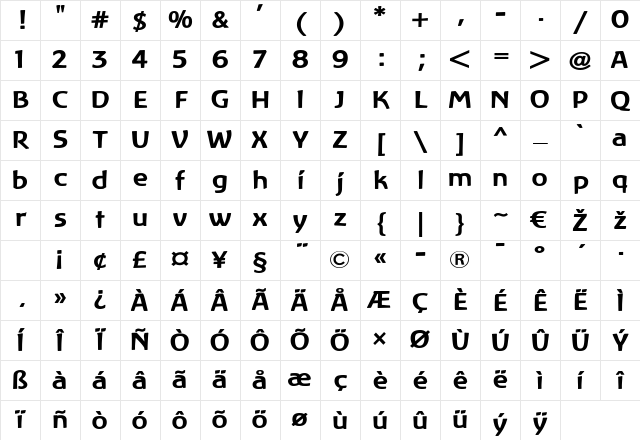
LTAtlantis Bold Regular
Designer: Lutz Baar
Design Context for LTAtlantis Bold
LTAtlantis Bold is a composed and adaptable typeface that performs quietly and consistently across a wide range of design contexts. Its bold stroke weight gives it real presence on the page.